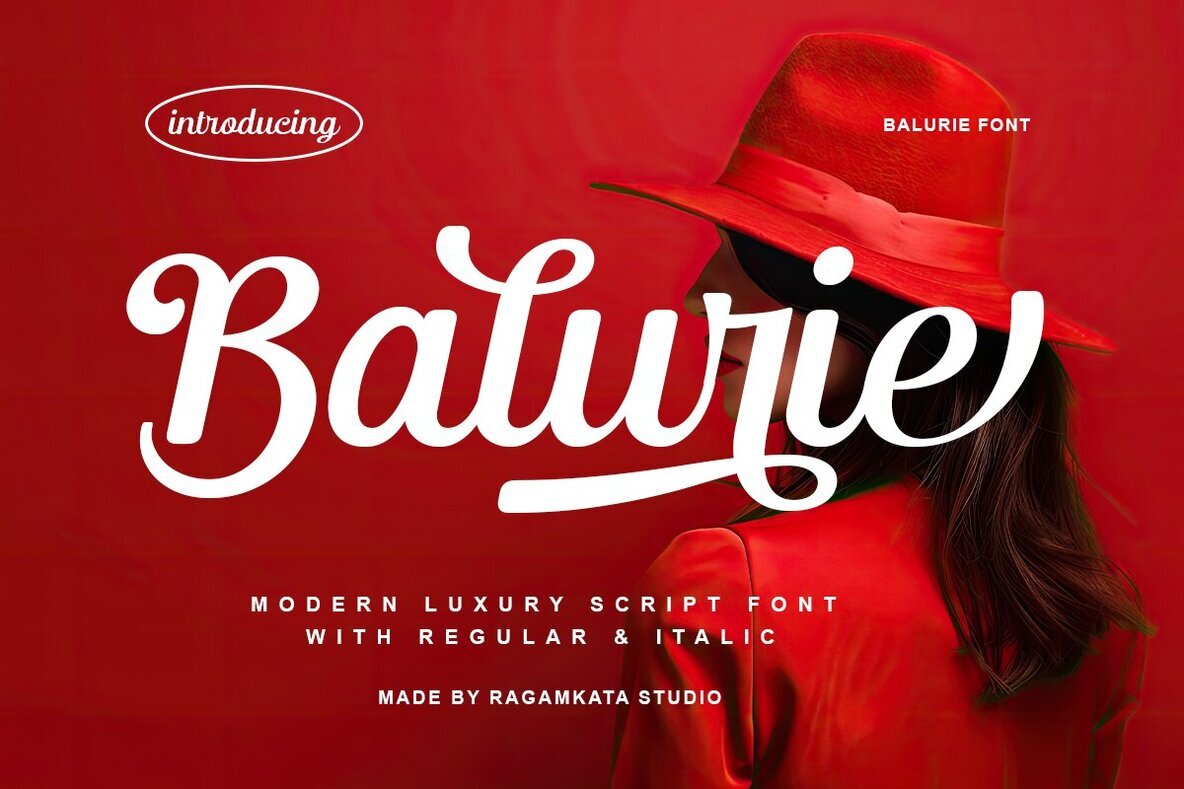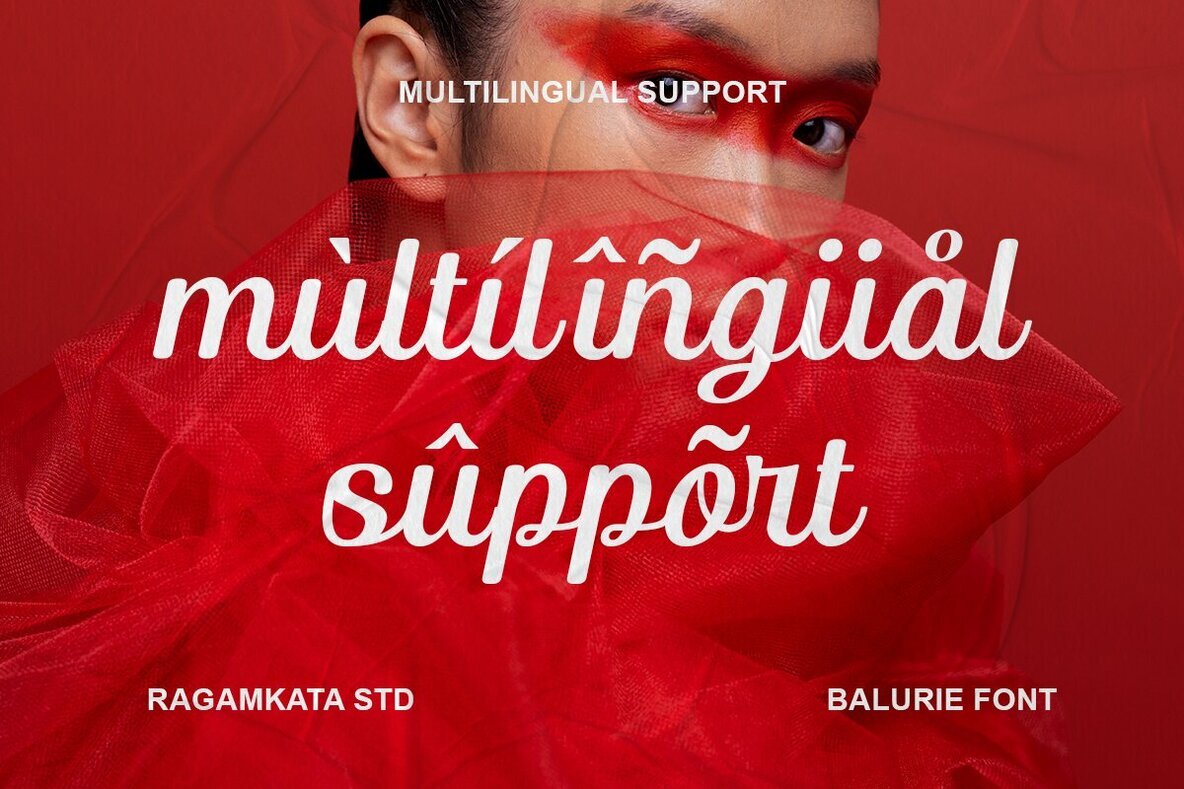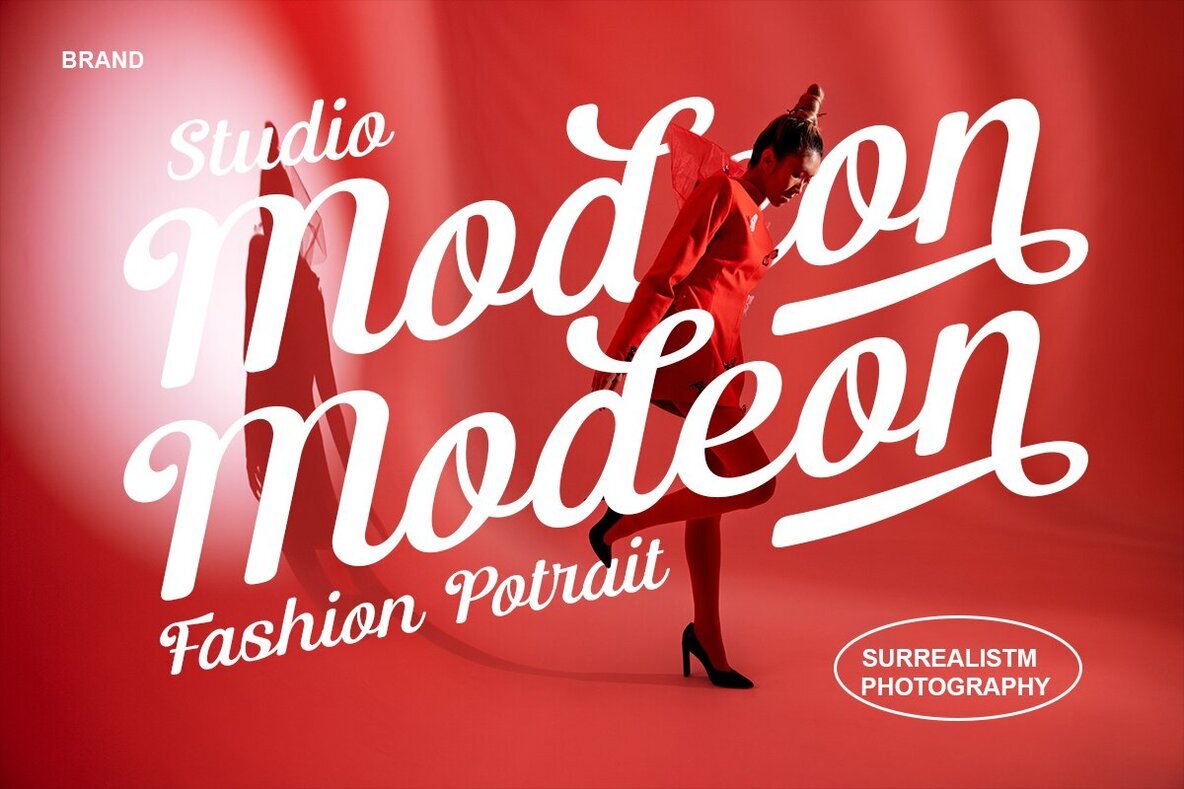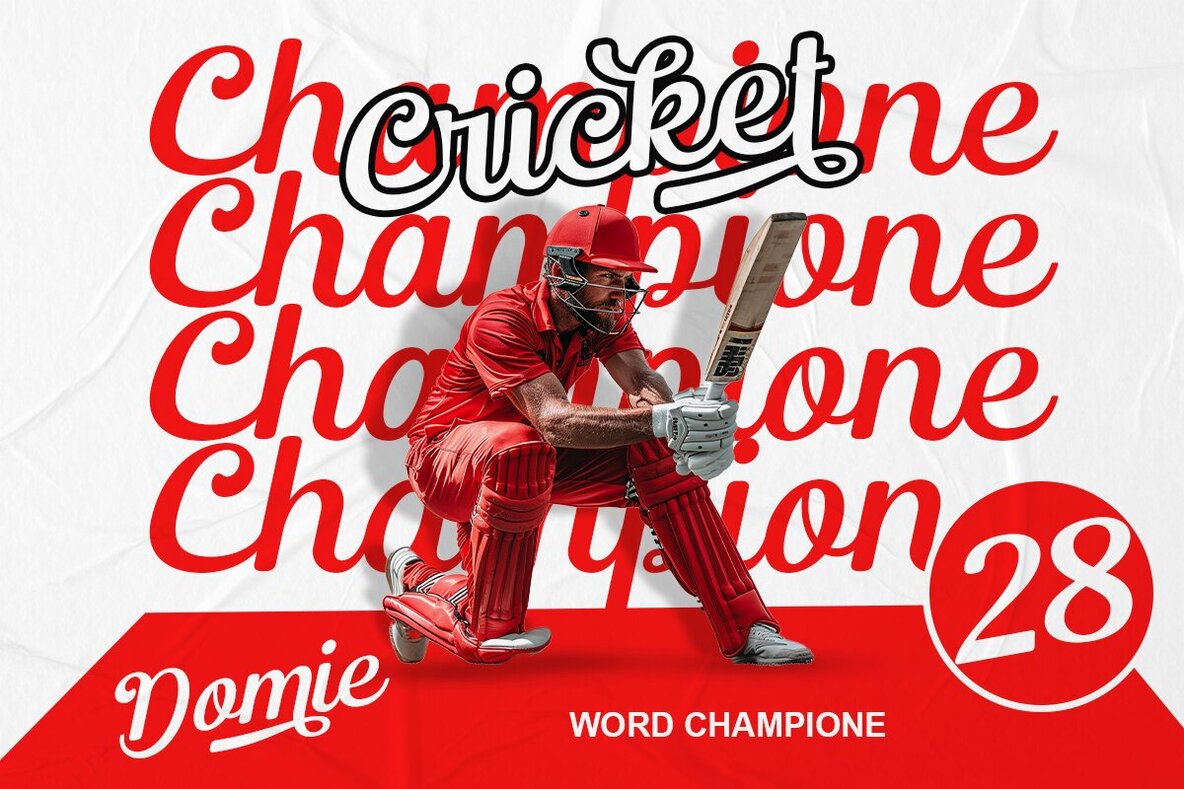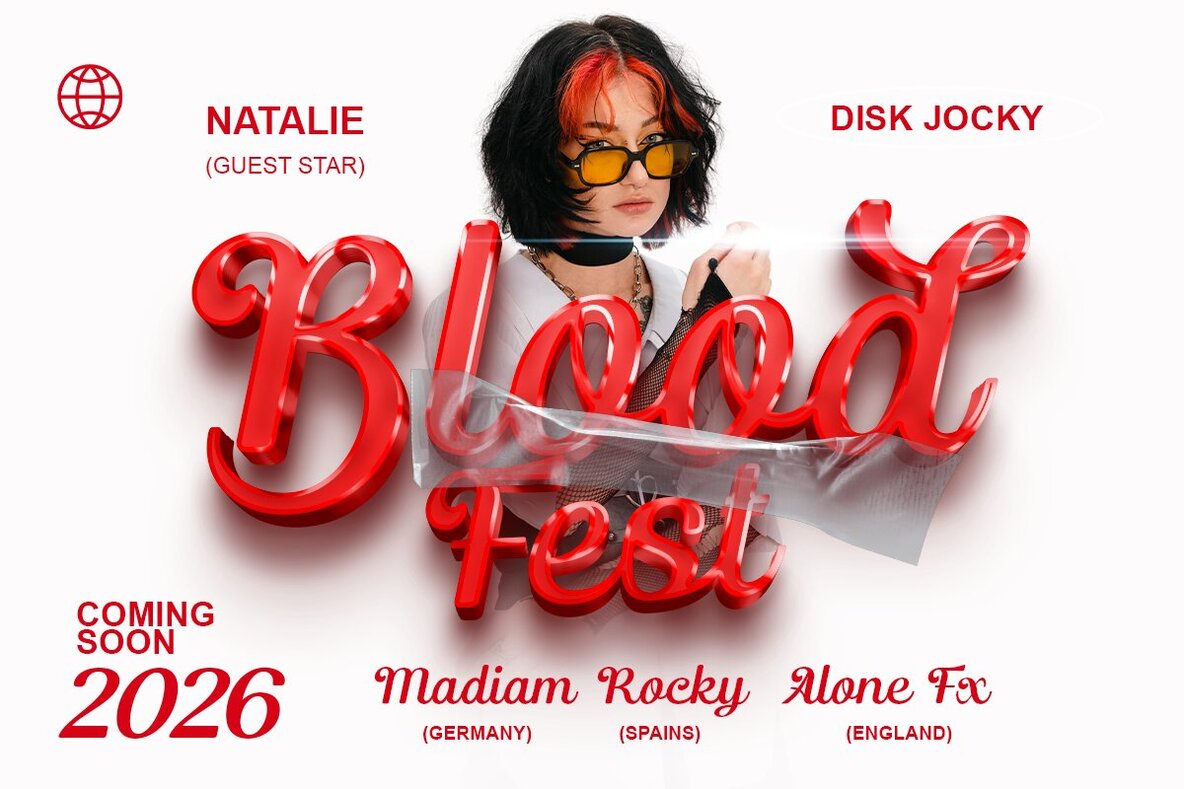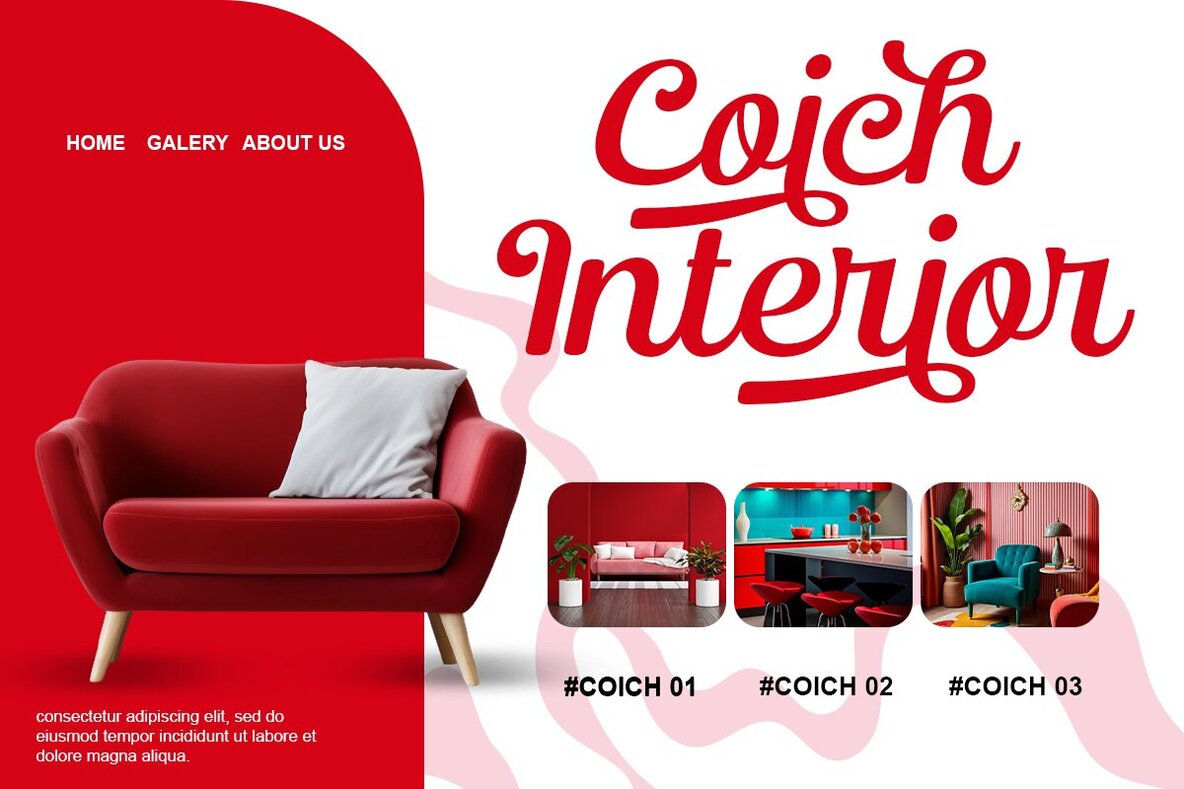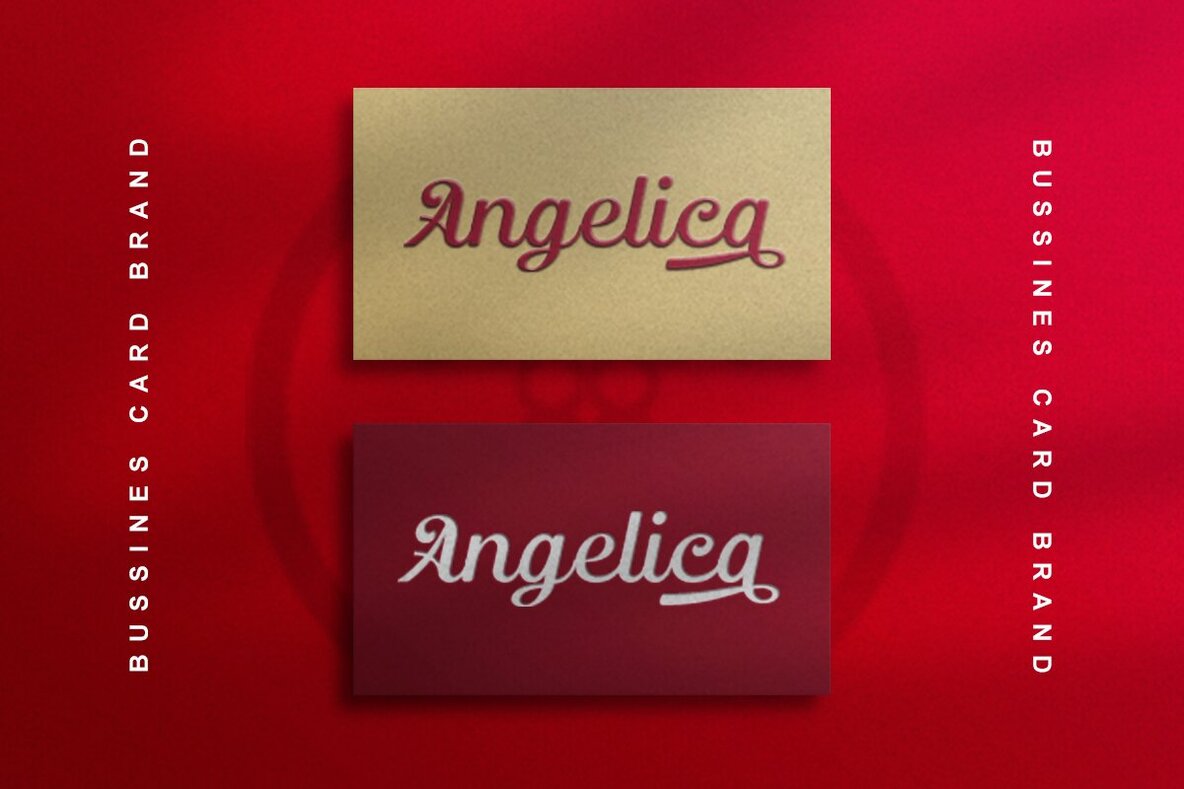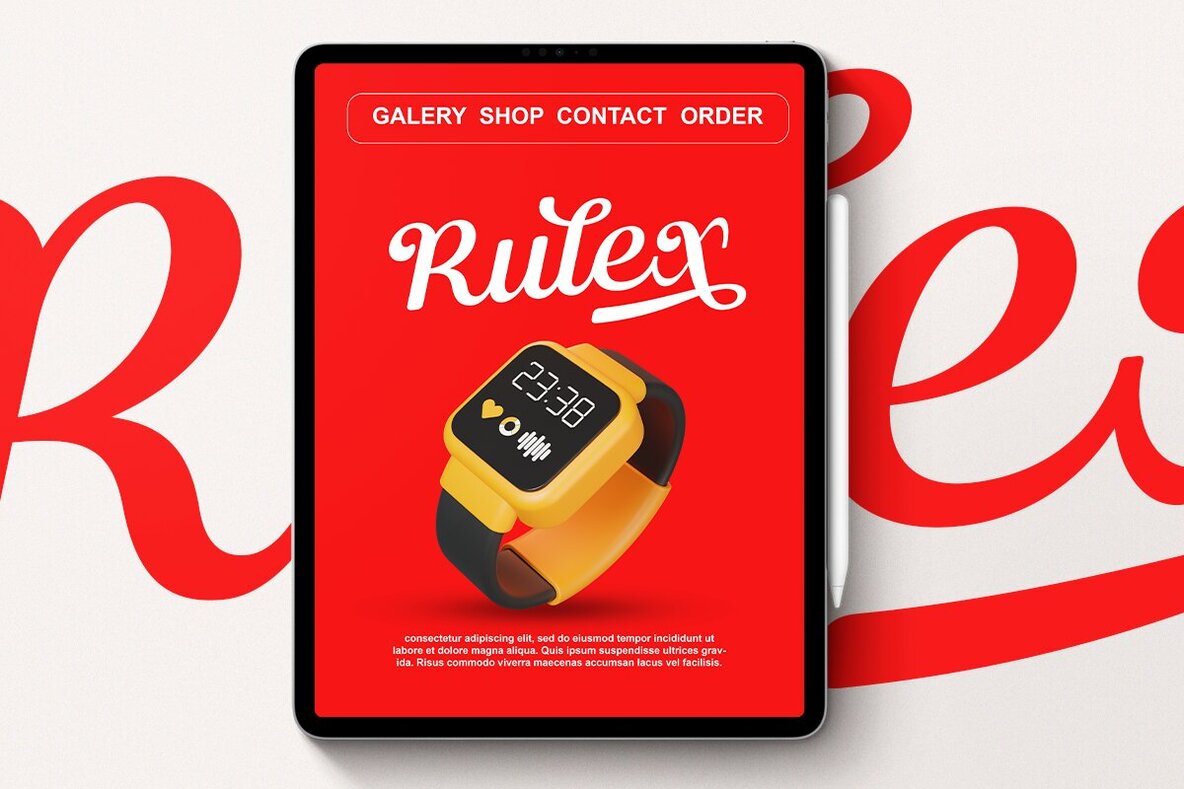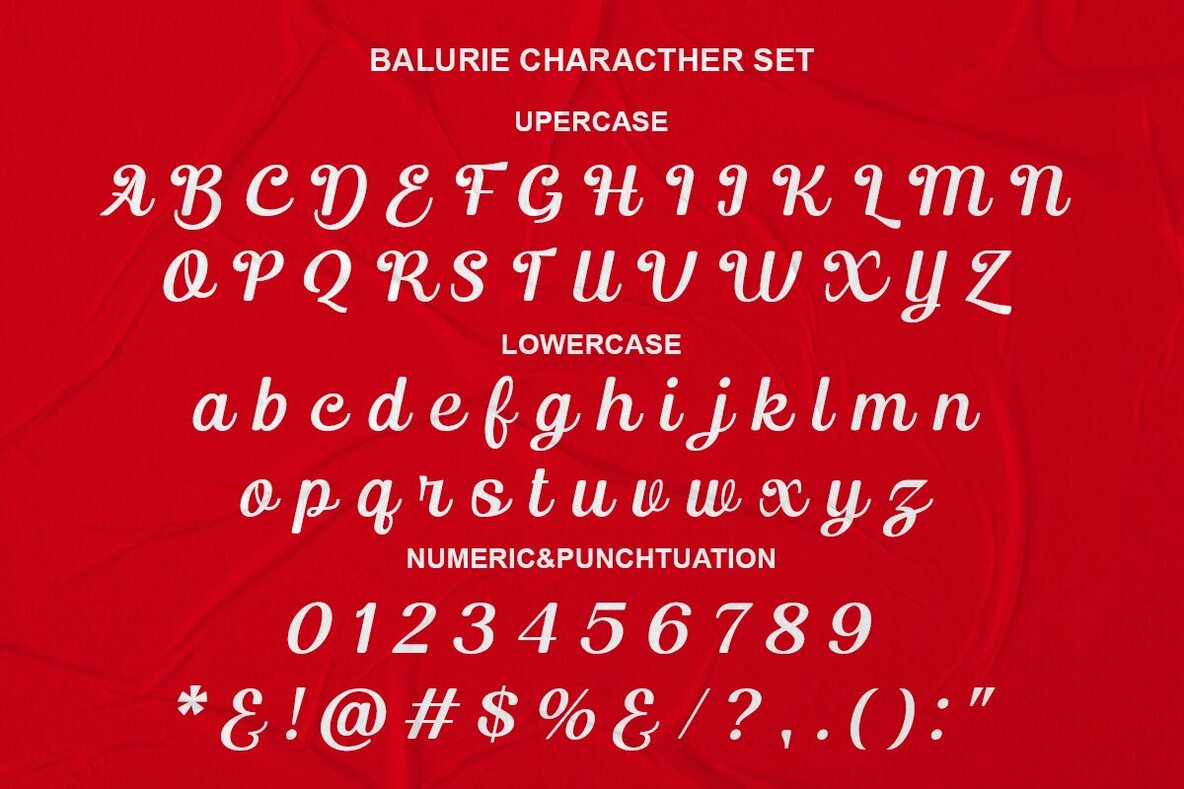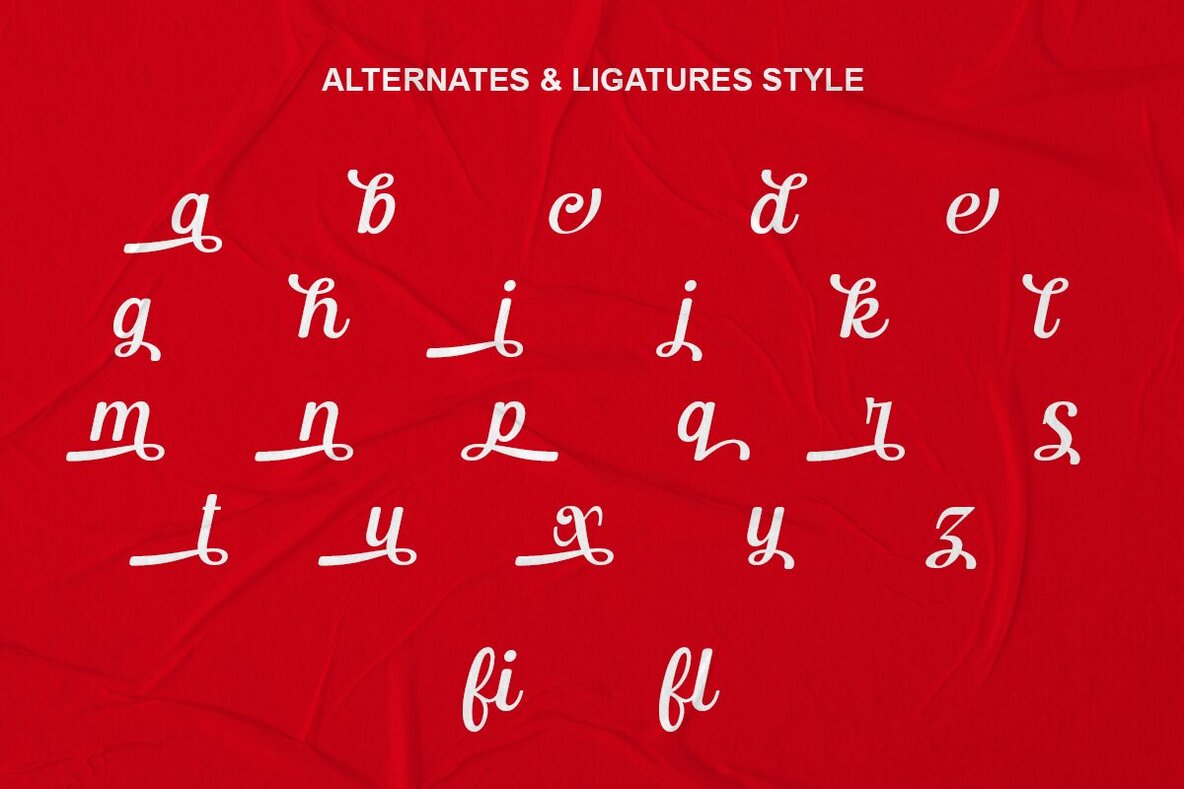
Balurie Font
Balurie Regular
Balurie Italic
Balurie is a luxurious script font imbued with a noble and vintage aura. Its distinctive beauty shines through the graceful strokes and elegant swash capitals. Designed for flexibility, Balurie offers an array of alternate characters, swashes, and ligatures. The variety of tail options, each with unique shapes and widths, lends your design a vintage logotype or sporty flair, showcasing Balurie's versatility. Perfect for crafting exquisite typographic elements, this font is ideal for logos, lettering artwork, and editorial illustrations.Balurie Luxury Script Font